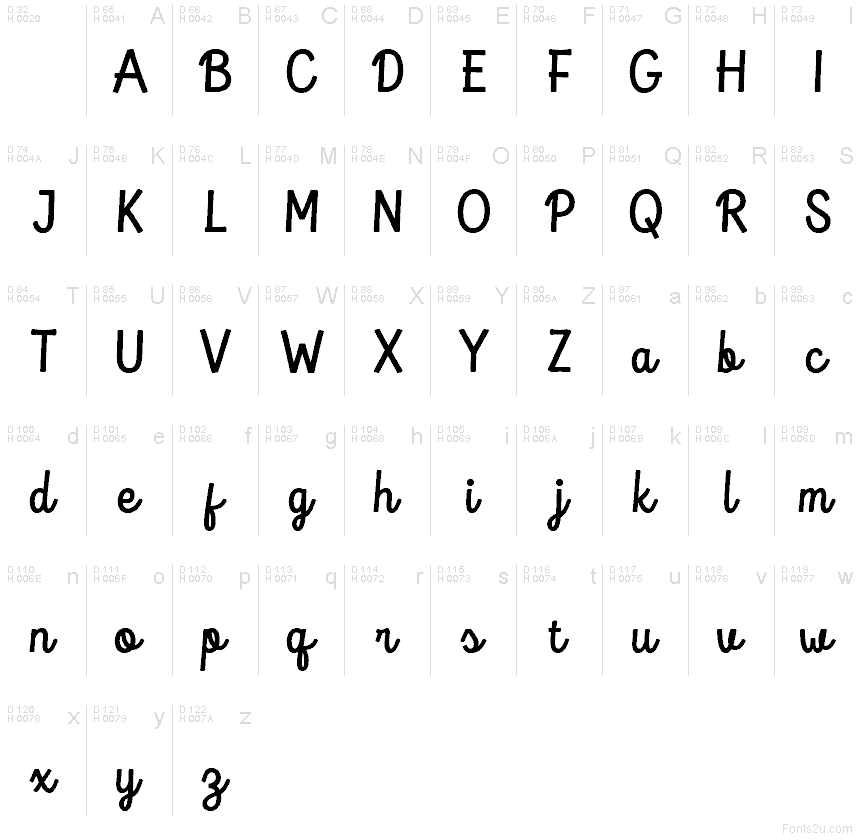
CS Britney Regular Demo
CS Britney font by Craft Supply Co. captures the essence of a smooth flowing, script-like handwritten design with casual elegance. This expressive yet elegantly constructed free handwritten font features an informal feel making it ideal and comfortable for usages that need such combined characteristics.
It works equally well on logo designs, titling banners, packaging designs, branding projects as well that social media posts and websites. Cards, advertisements and magazines are just a few other places where this font could find its usage at its best light.